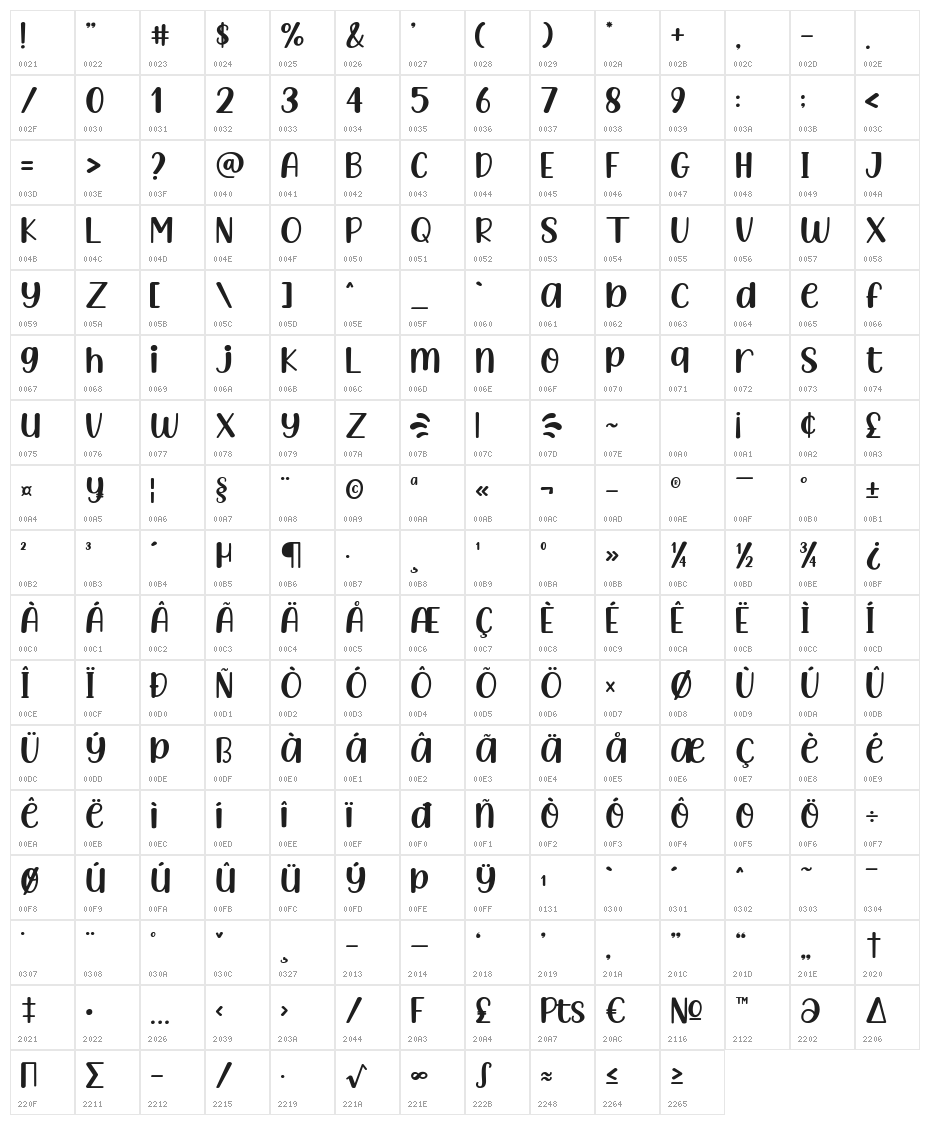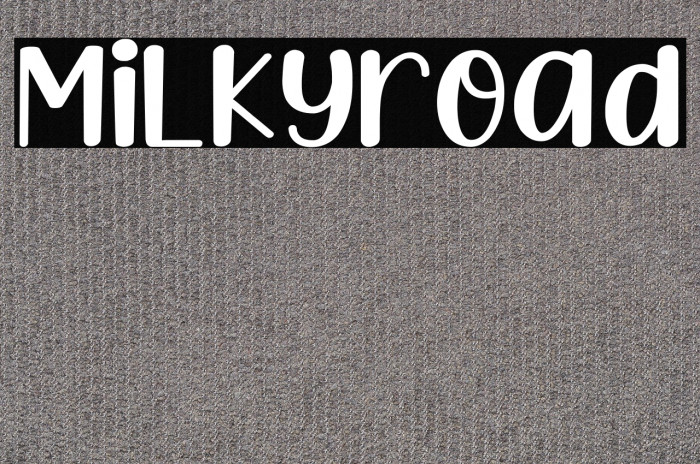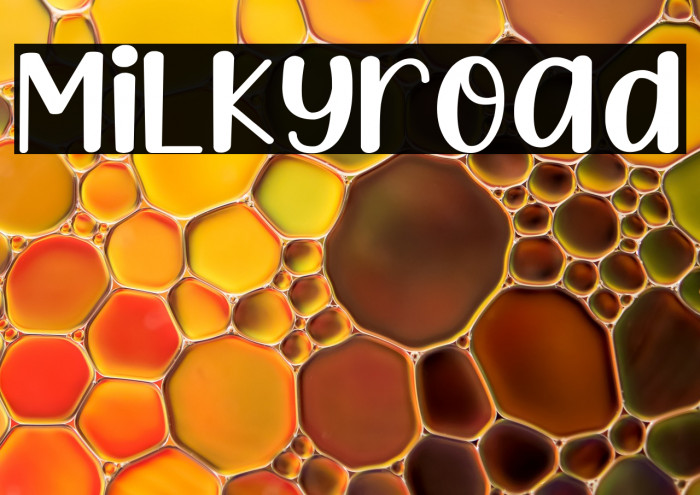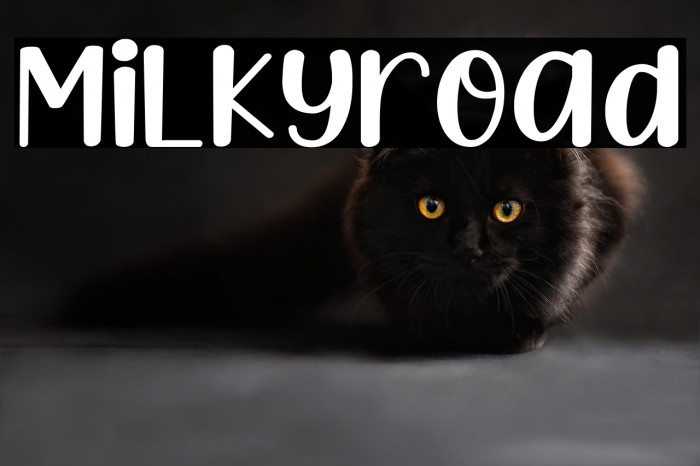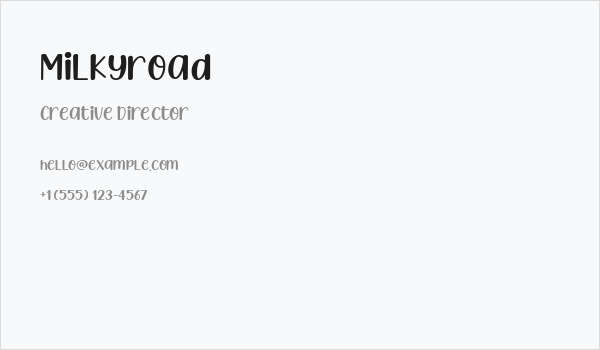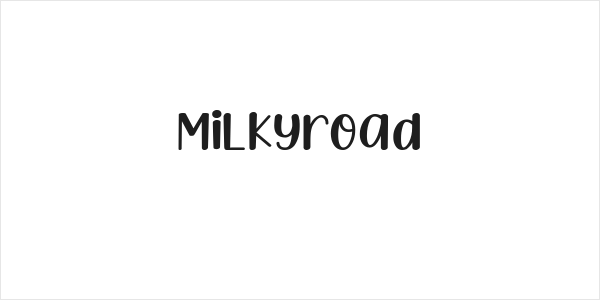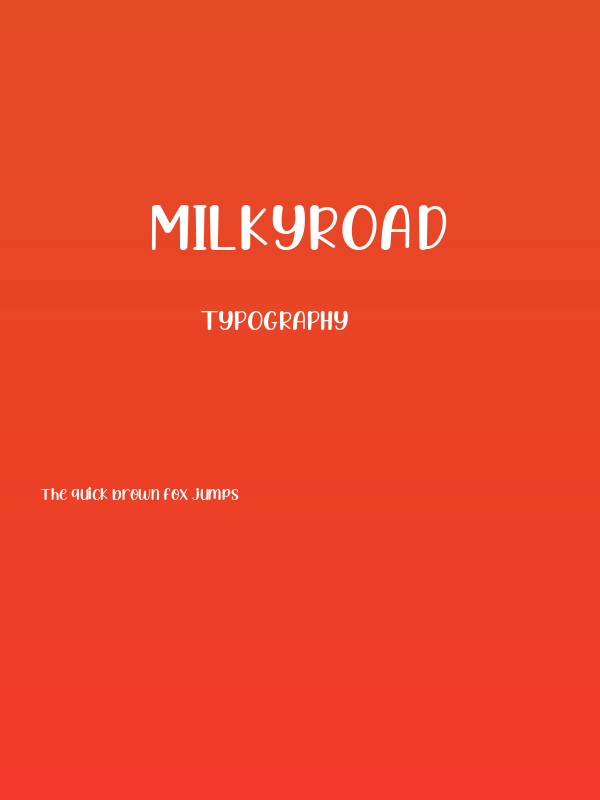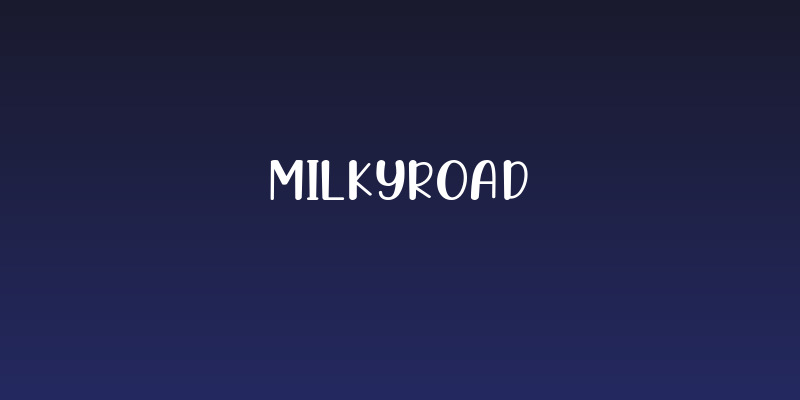
Milkyroad Font
Milkyroad Description
This font features a playful and whimsical style, characterized by its rounded and smooth letterforms. The strokes are bold and consistent, providing a friendly and approachable appearance. Each character maintains a uniform width, contributing to a cohesive and harmonious look. The font includes both uppercase and lowercase letters, numerals, and a variety of special characters, making it versatile for different design needs. Its distinctive style is ideal for projects that require a touch of fun and creativity, such as children's books, playful branding, or casual invitations.
Overall StylePlayful
Use CaseHeadlines, Logos, Invitations
Proposed ProjectsIdeal for children's books, playful branding, casual invitations, and creative projects.